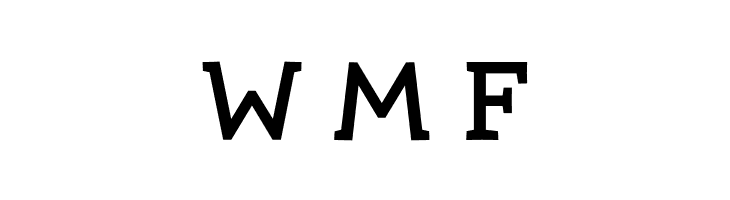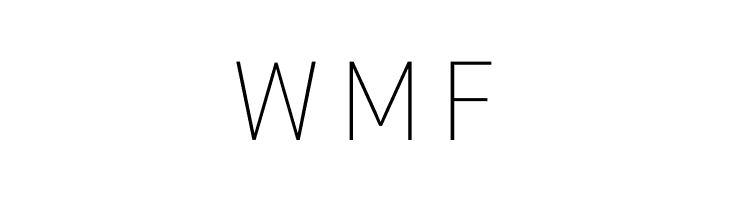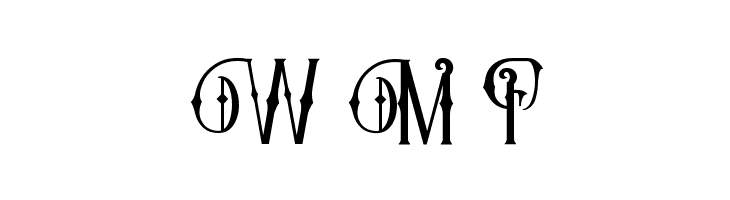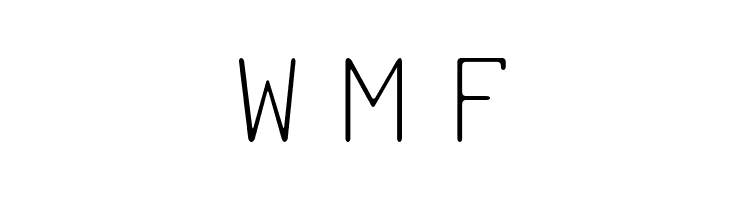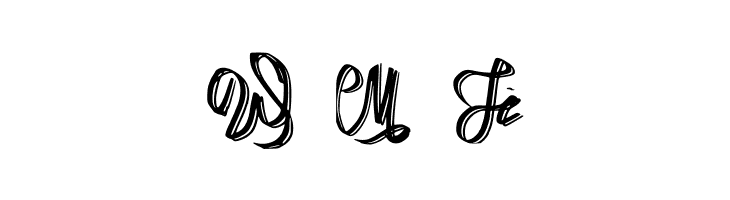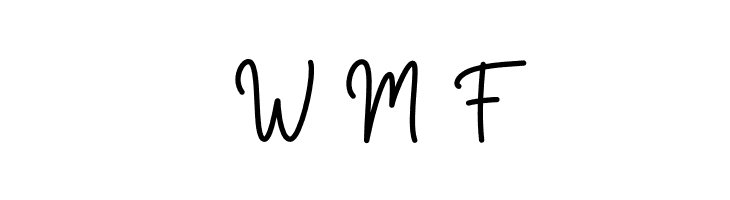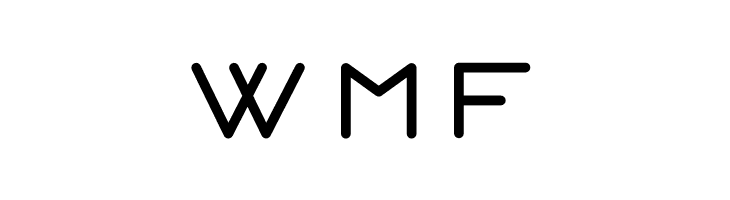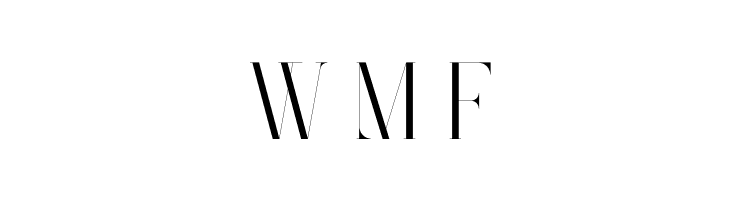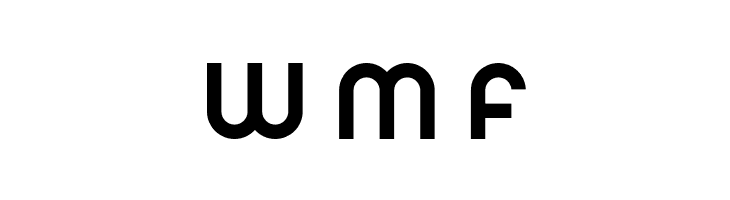
A modern slab serif font with bold, geometric letterforms and a contemporary style.
A sleek, modern font with thin, elongated letterforms and clean lines.
A modern, geometric font with clean lines and a bold presence.
An ornate and decorative font with intricate details and elegant embellishments.
A geometric, rounded font with a modern and clean aesthetic.
An elaborate cursive font with intricate loops and decorative flourishes.
A playful, handwritten font with smooth, flowing lines and a casual elegance.
A modern, geometric font with rounded edges and consistent stroke widths.
A modern, high-contrast font with elegant, geometric forms.
A modern, geometric font with clean lines and rounded edges.